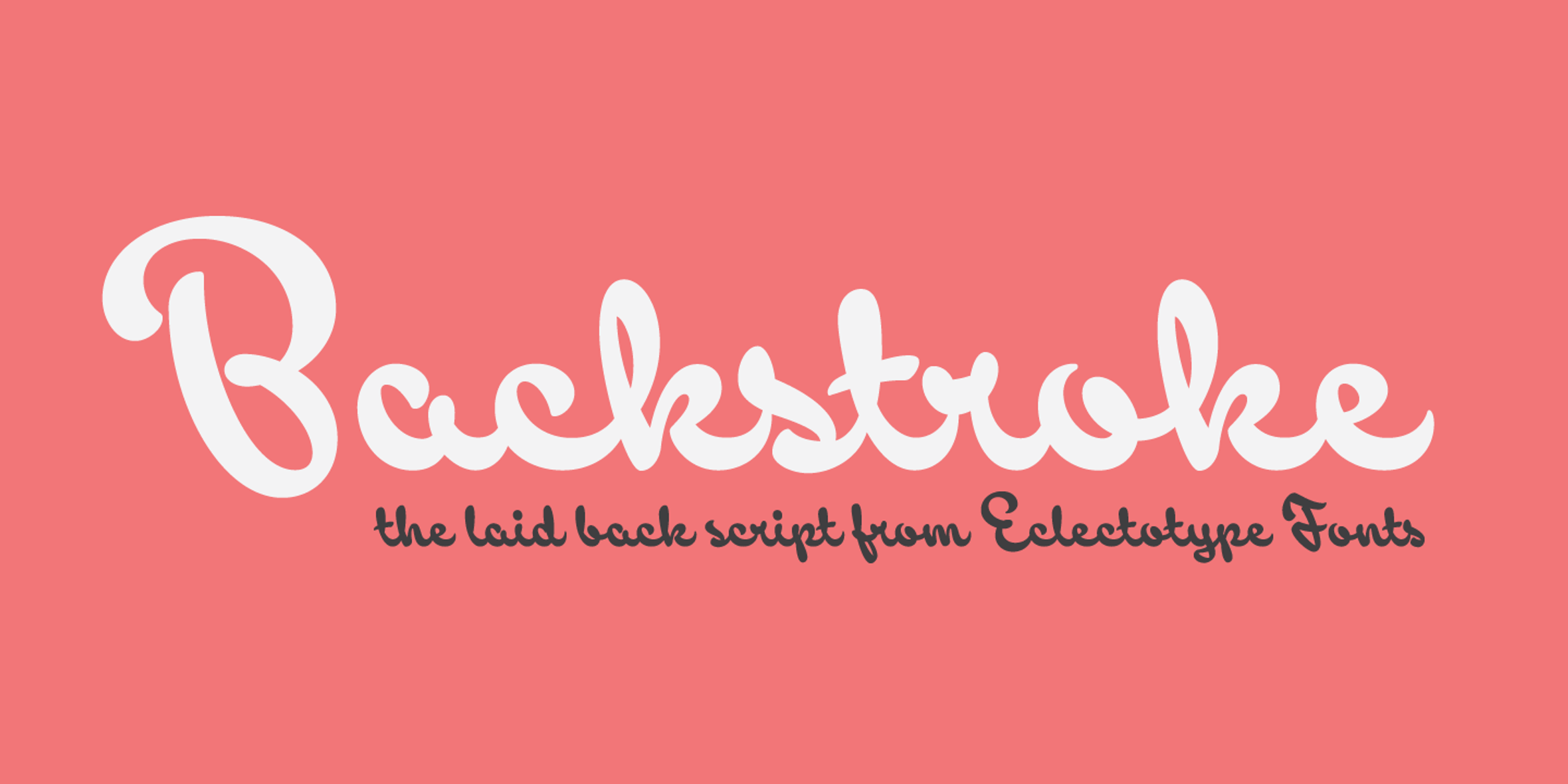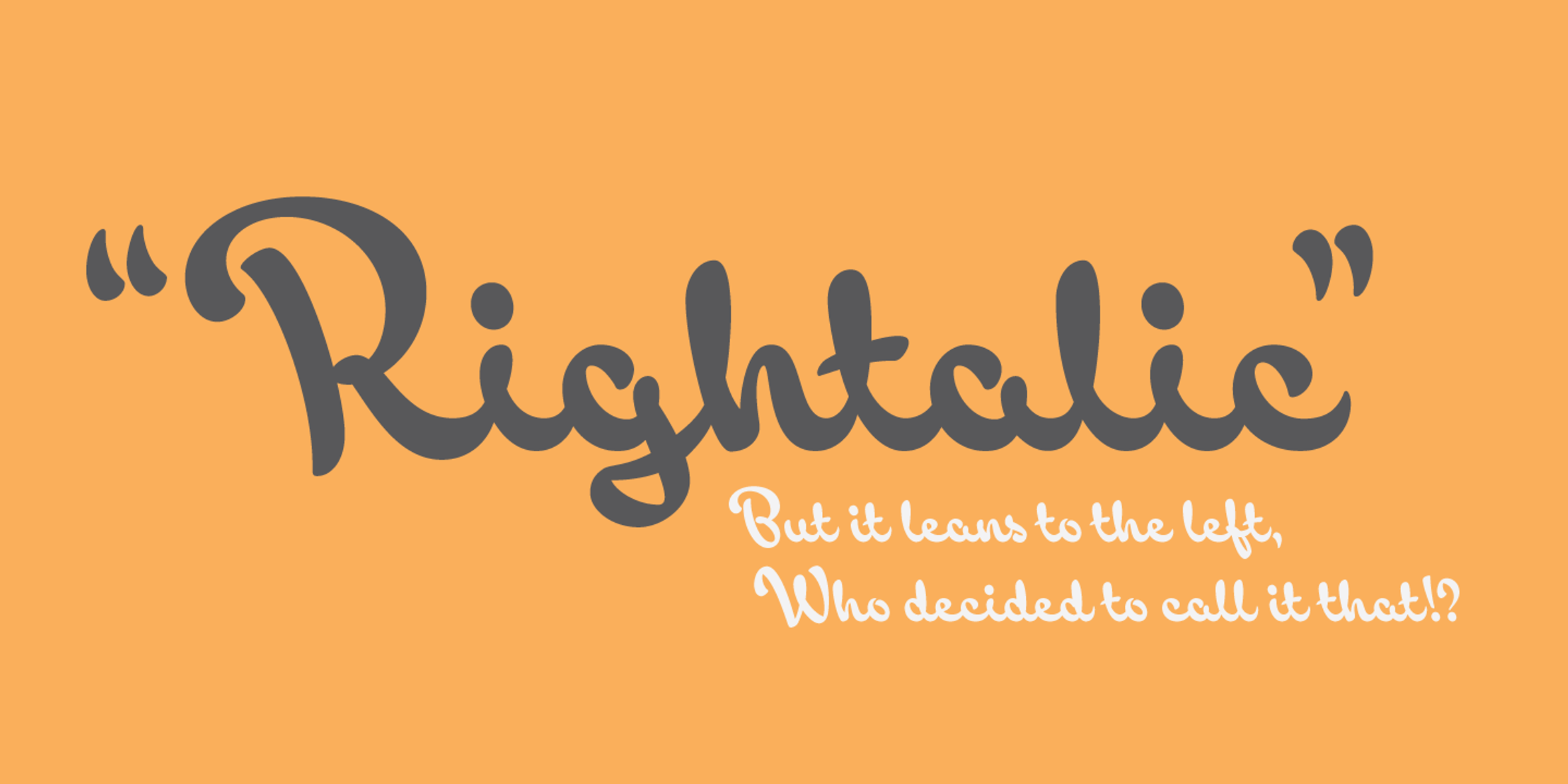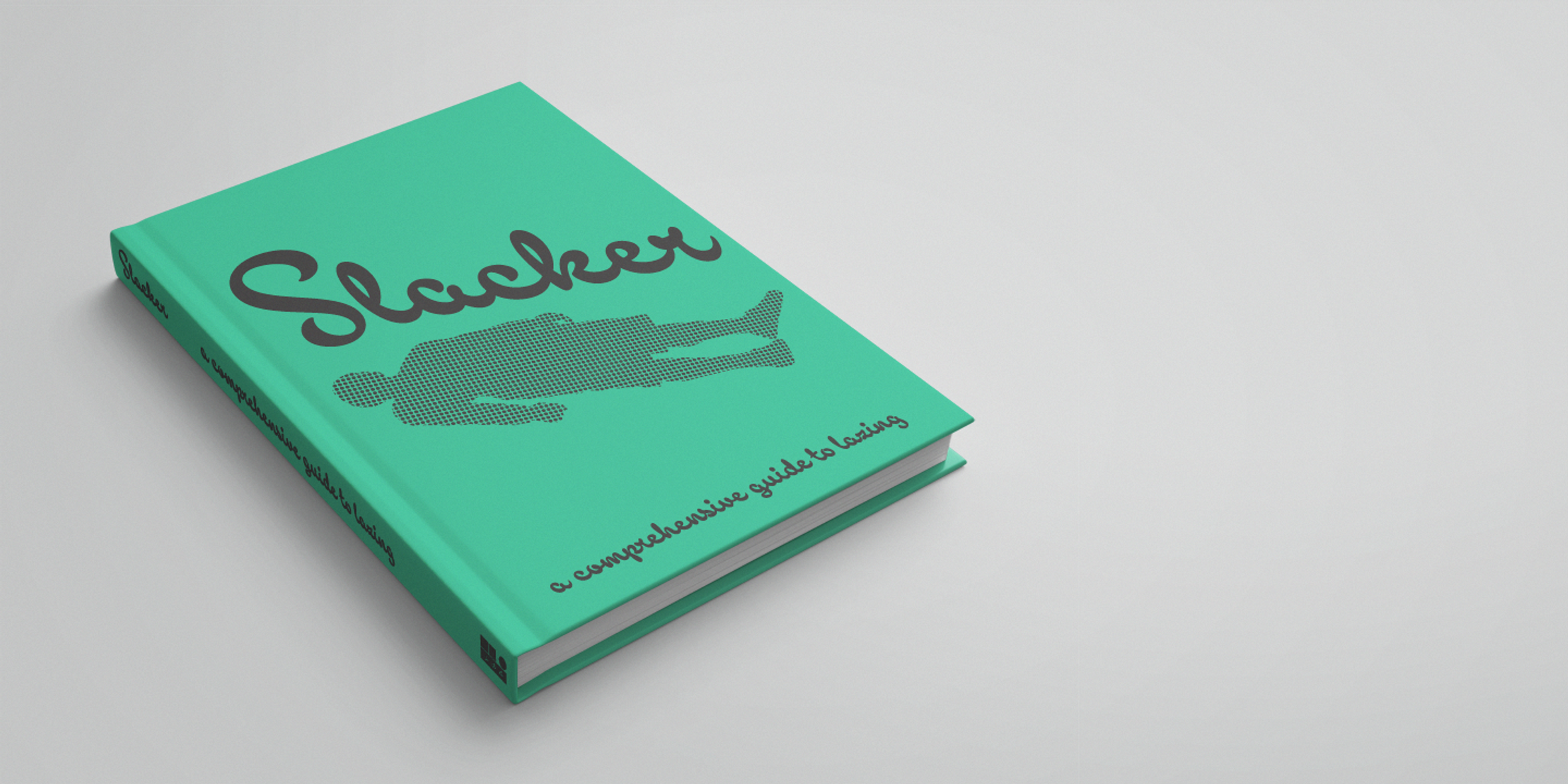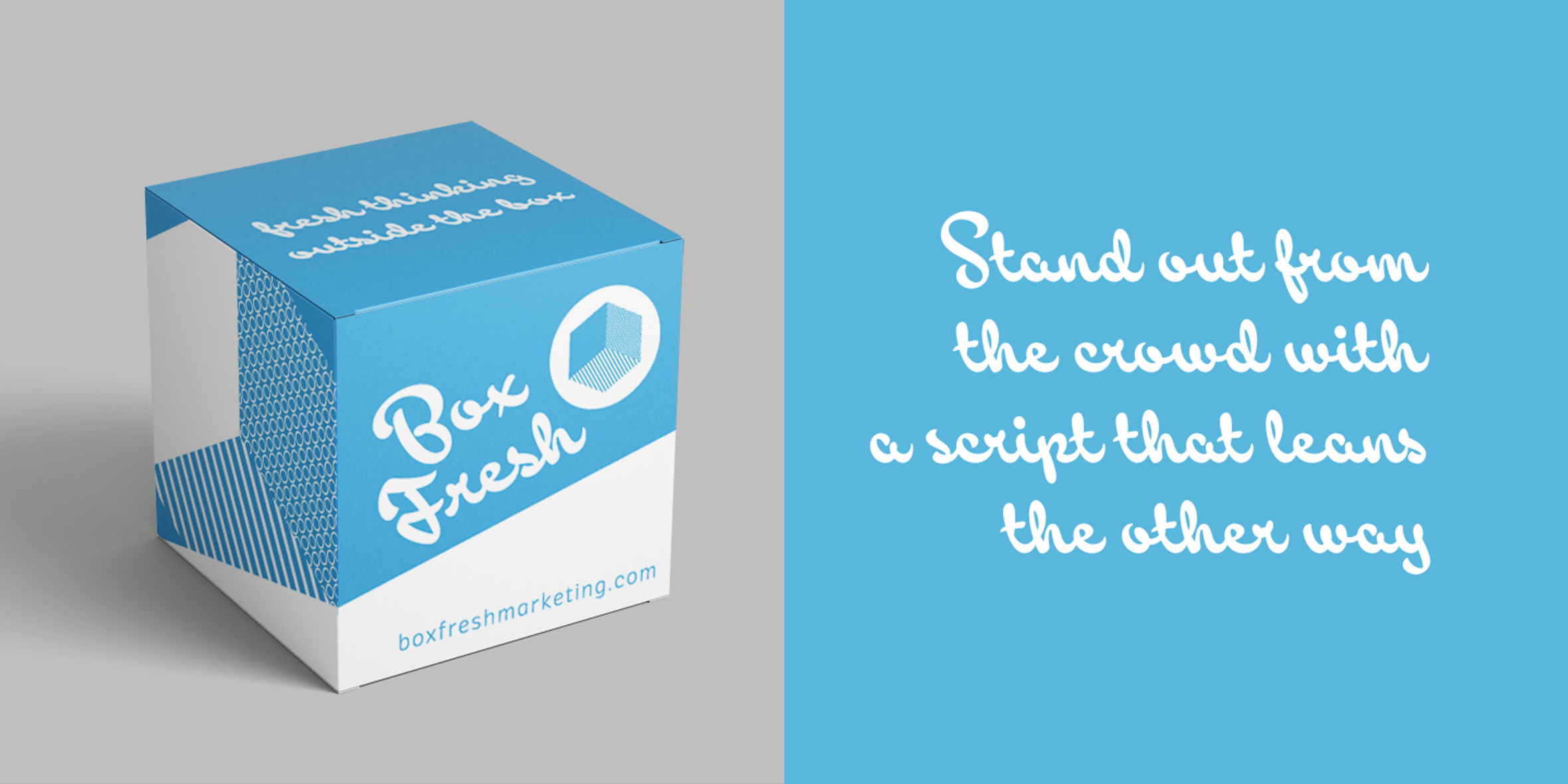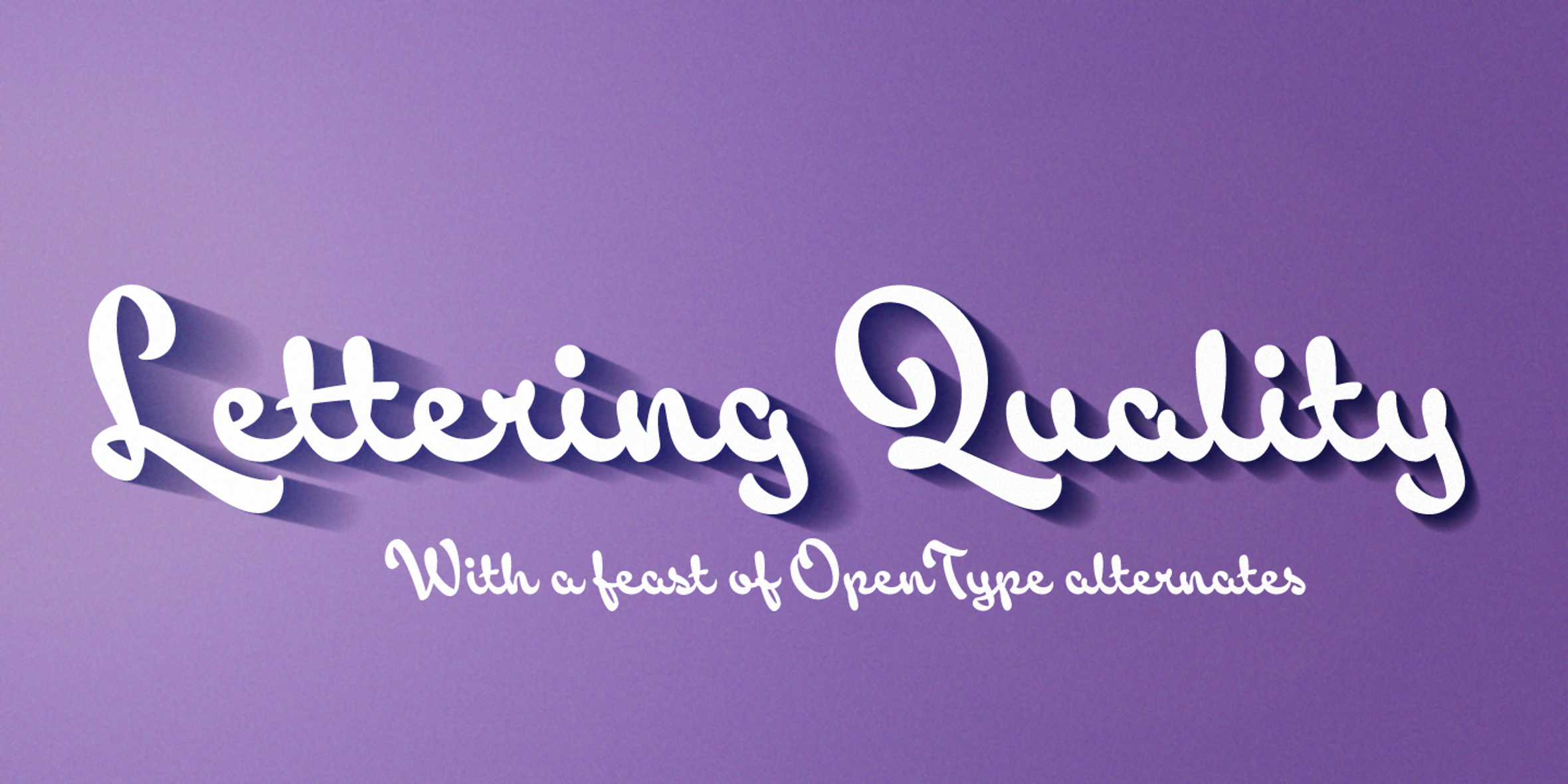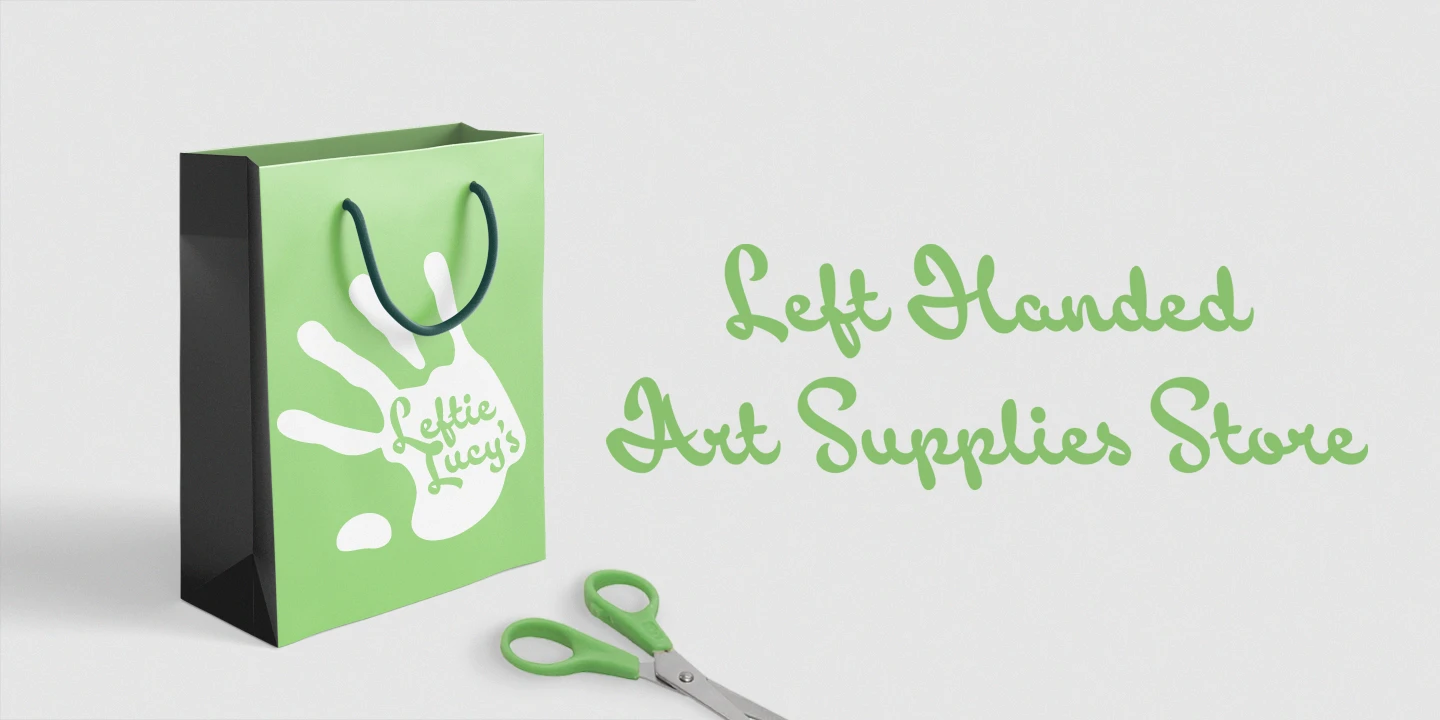
Backstroke Font
Backstroke
Here’s Backstroke, a laid-back script with a unique voice. Normal and upright italic script fonts line a well-trodden path; left-leaning fonts (or “rightalics” as they’re confusingly called), on the other hand, are a rarity. While fonts that lean the wrong way may be more challenging to fit into your layouts than boring old regular italics, you will be rewarded with their individuality. Backstroke’s restrained but intense voice will put your visual message on the right track. Give it a go?!
- Common Ligatures
- Ordinal Numerals
- Stylistic Alternates
- Swashes